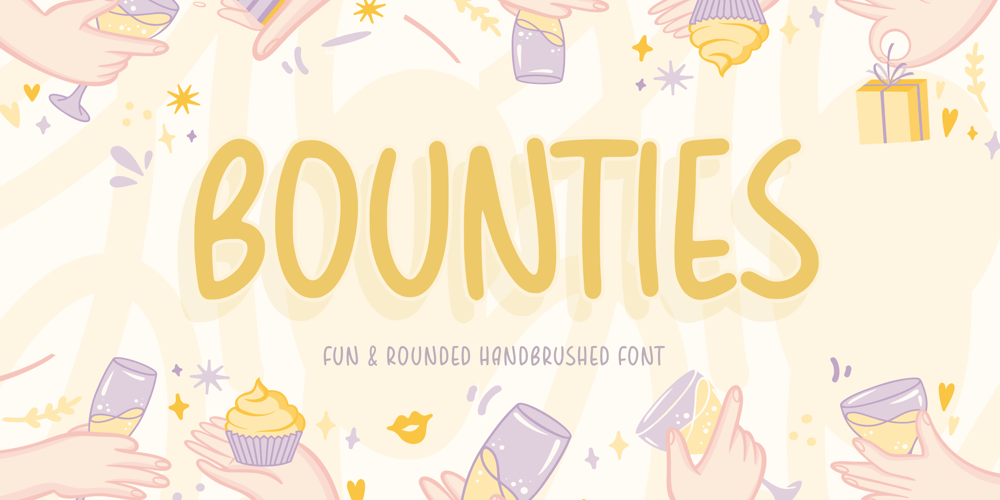
Bounties Font Family was designed by Restu Angga and published by Balpirick. Bounties contains 1 styles and family package options. BOUNTIES is a Fun & Rounded Handbrushed Font.Bounties is a fun, round, hand-brushed, and handwritten font that has an innocent and clean style. It is perfect for product packaging, branding project, magazine, social media, wedding invitations and so much more!BOUNTIES also multilingual support.Enjoy the font, feel free to comment or feedback, send me PM or email.